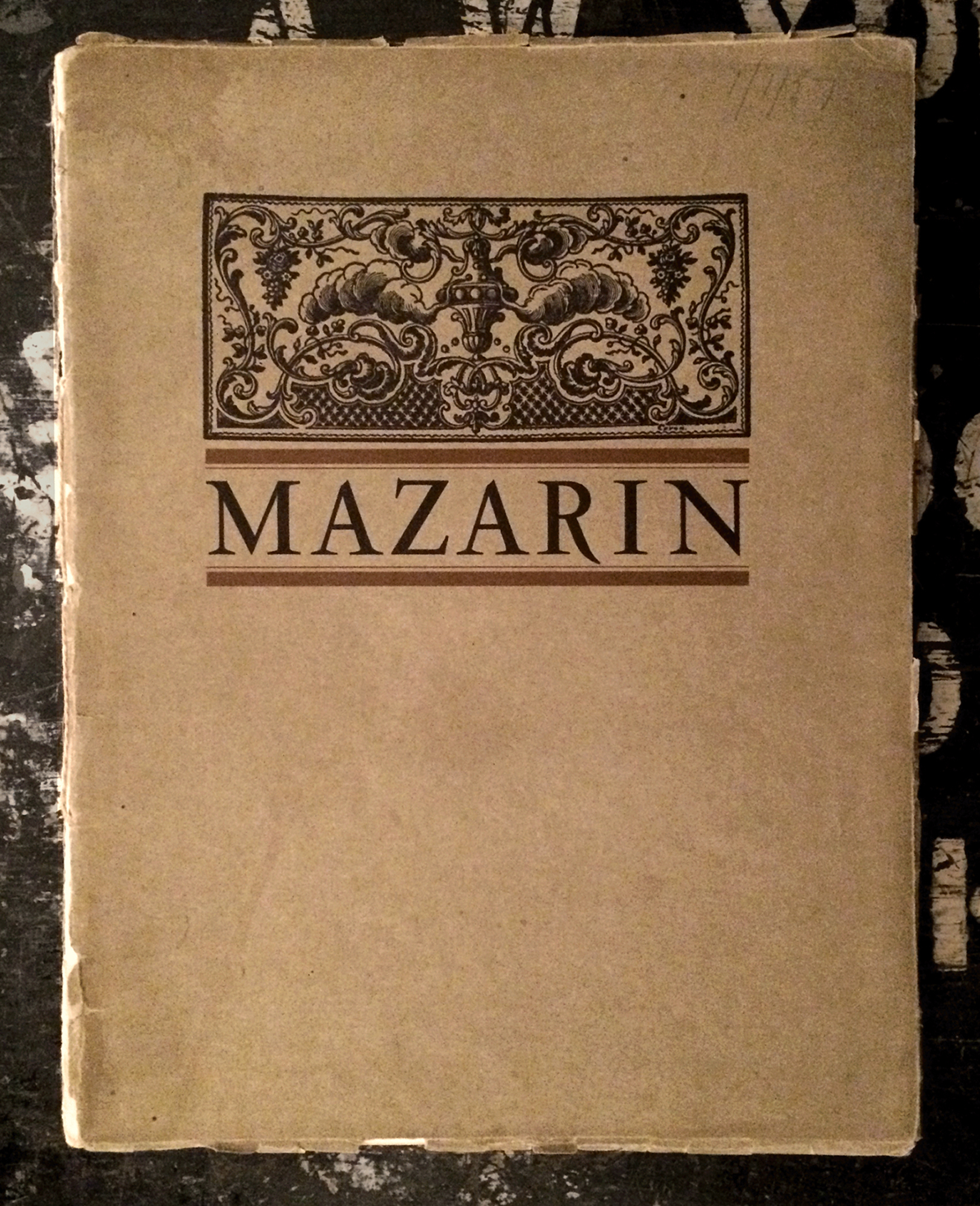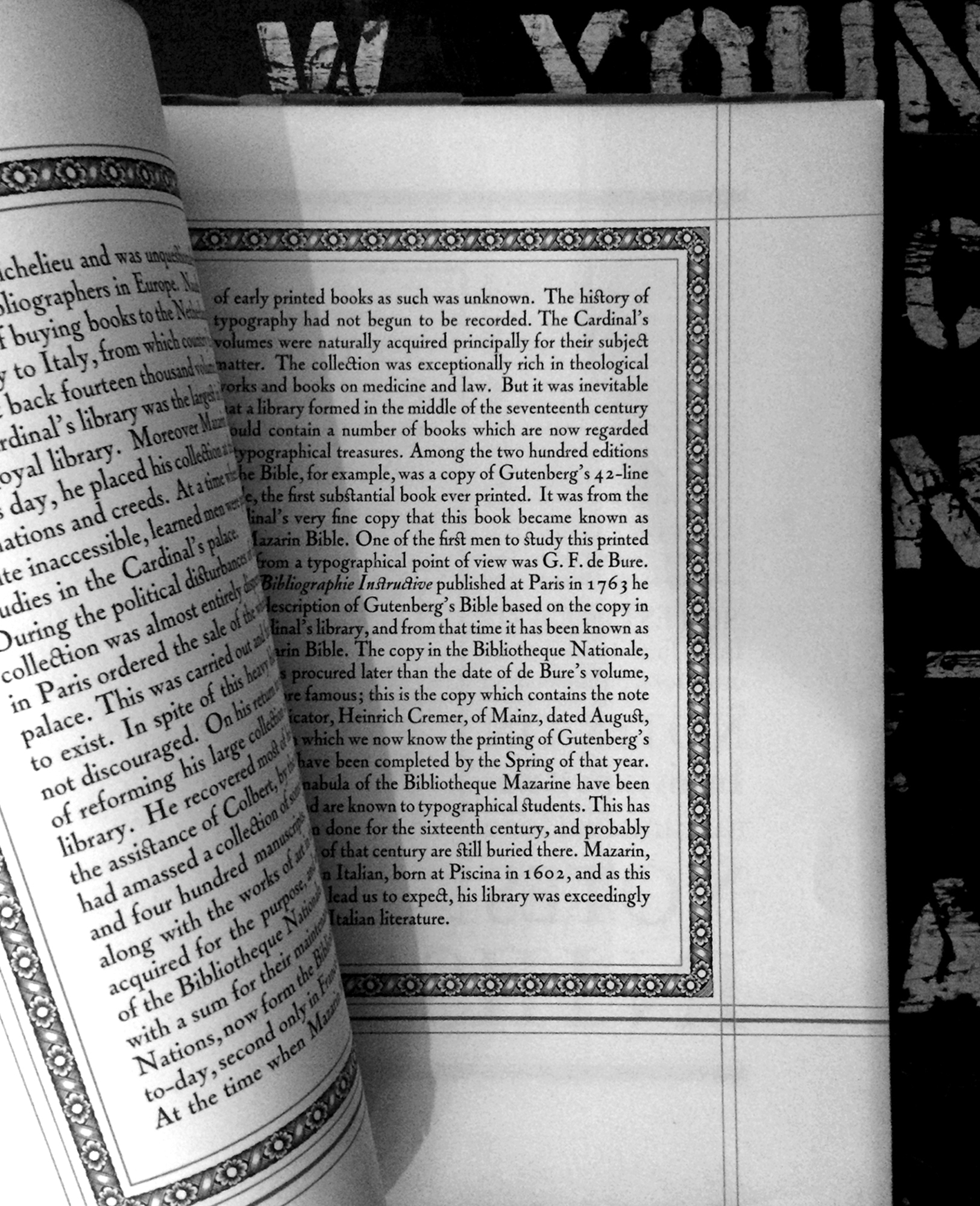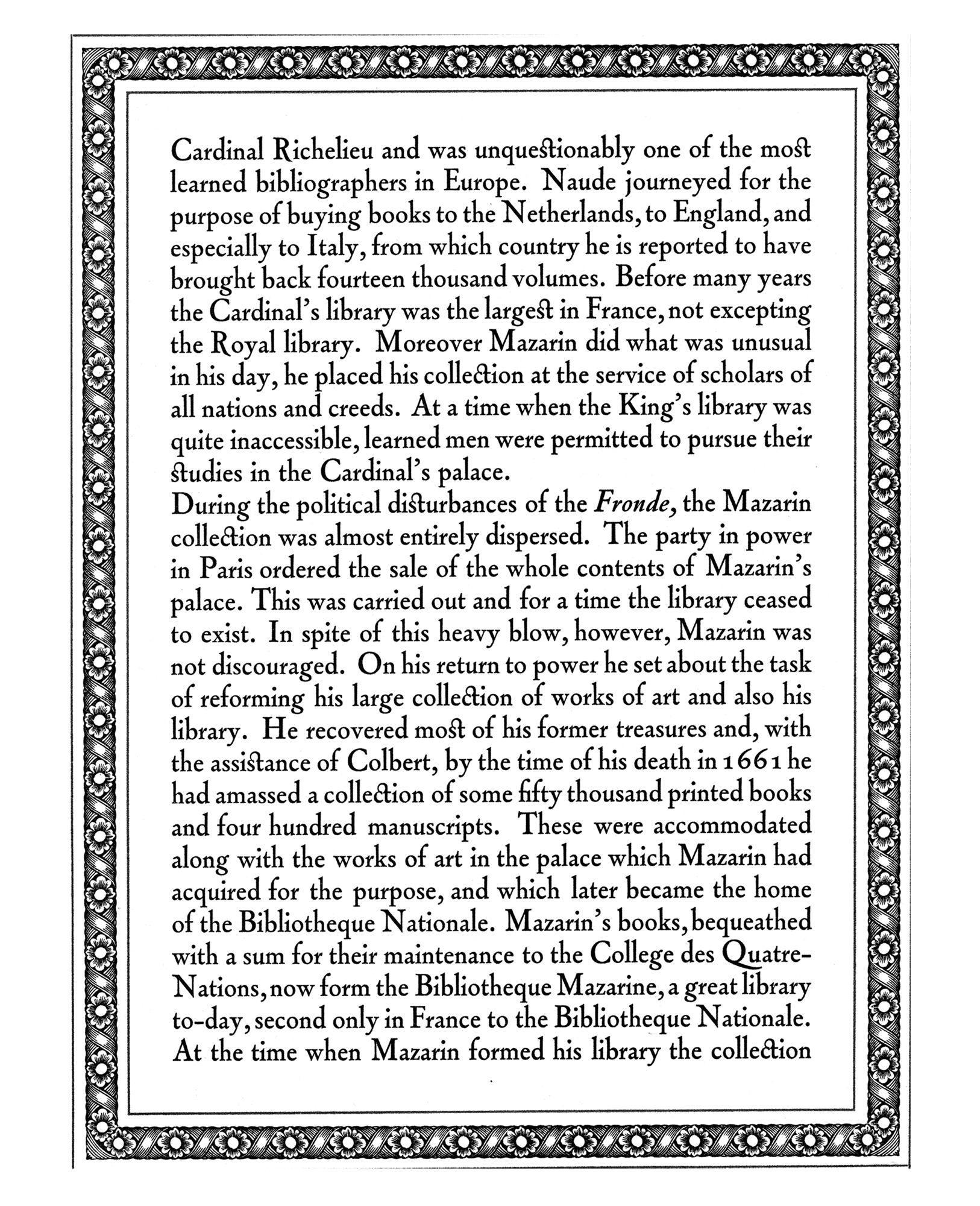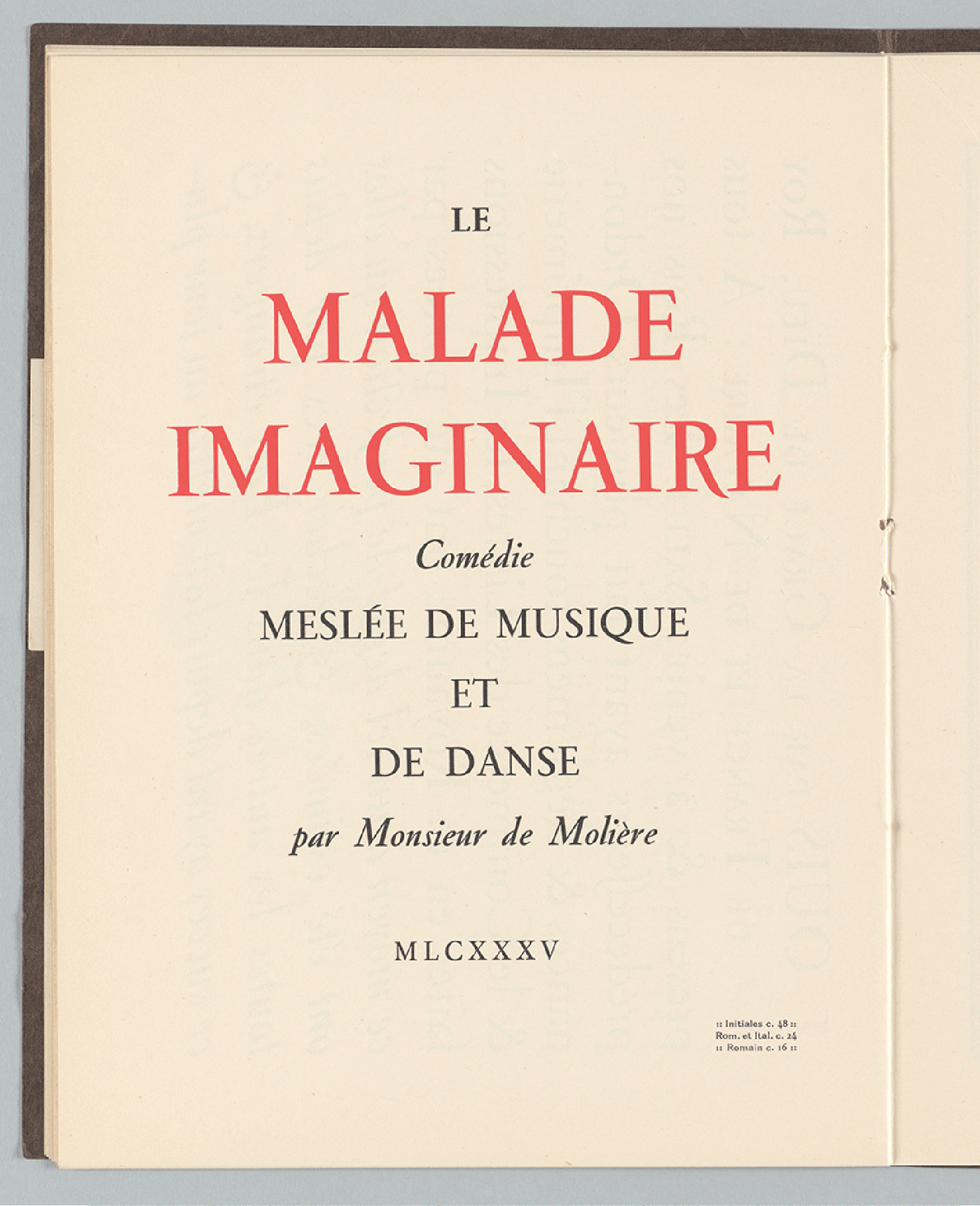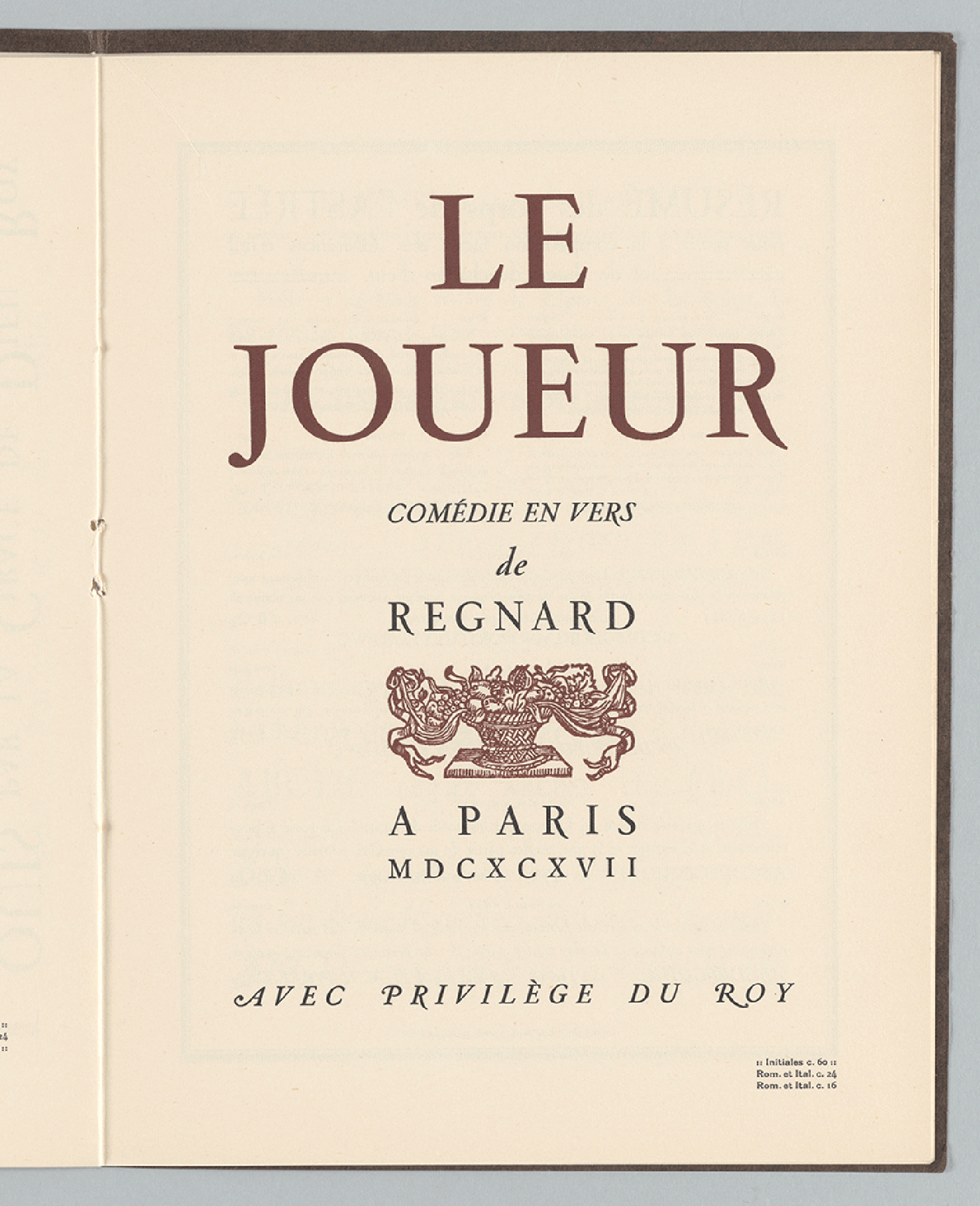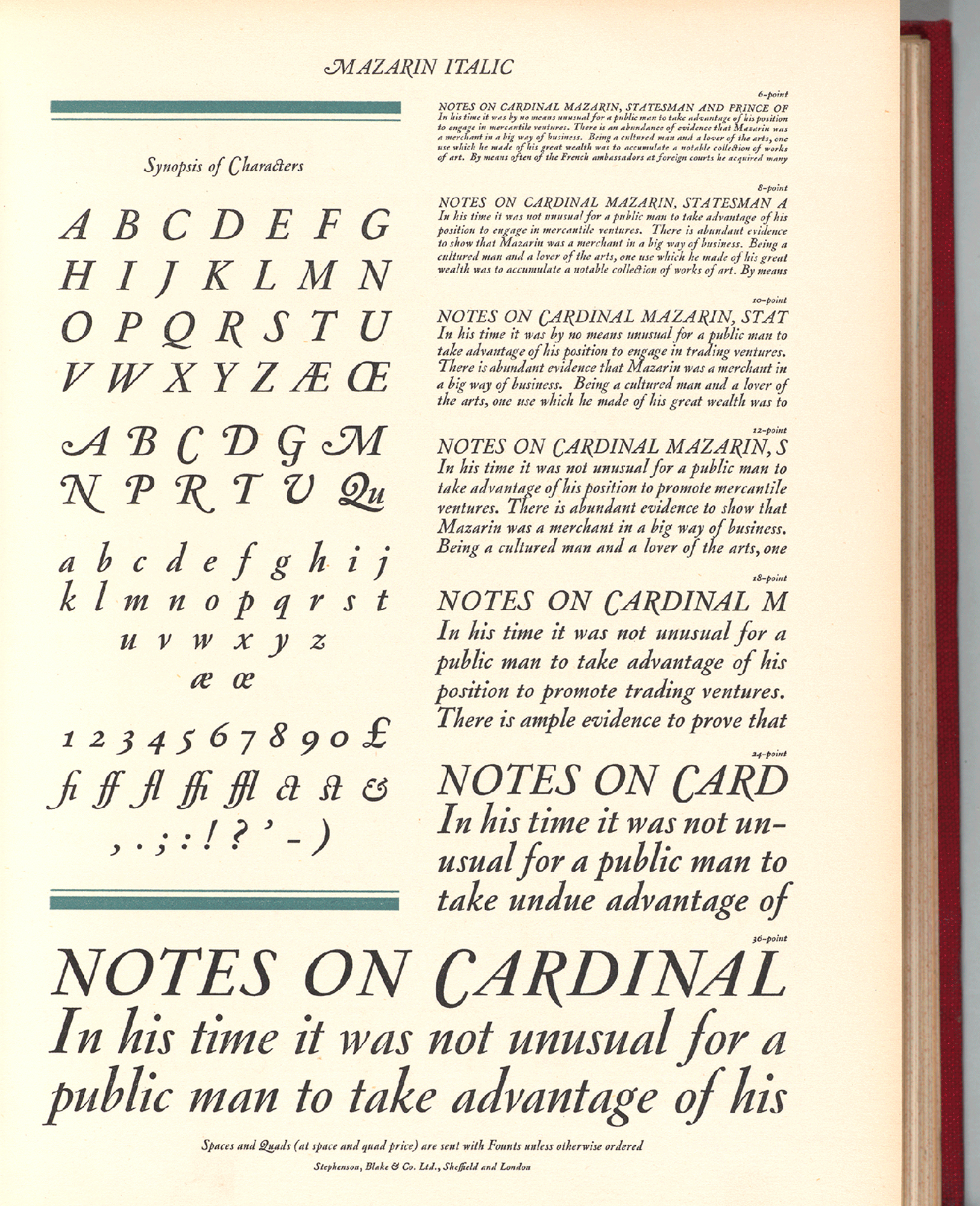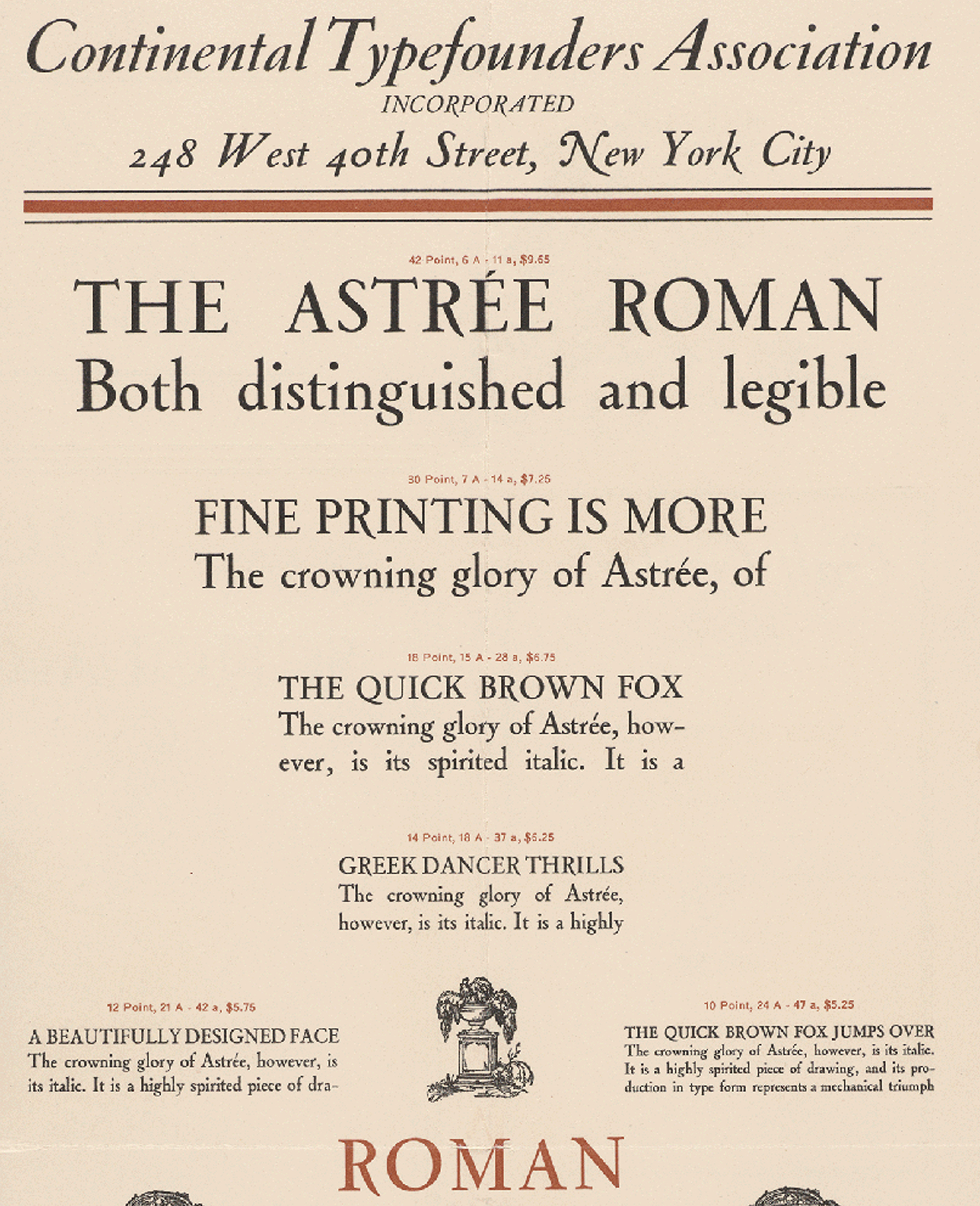
Astrée / Mazarin by Paul Shaw, June 2019
In the years that immediately preceded the Great War, the French typefoundry G. Peignot et Fils issued a trio of typefaces collectively referred to as “Les Cochins”: Le Cochin (1912), Le Moreau-le-Jeune (1912), Le Nicholas-Cochin (1912–1914). Designed by Georges Peignot, these typefaces were modelled after lettering and type of the 18th century ancien regime, especially that of engraver Charles Nicholas Cochin (1715–1790). [1] Les Cochins (along with Naudin and Bellery-Desfontaines, two other types from the Peignot foundry issued in 1911) were viewed as a welcome break in French typography from the influence of Art Nouveau. [2] They were followed in 1914 by a Garamond from Peignot, inadvertently modelled like other “Garamonds” of the time on the types of Jean Jannon. This trend toward a return to the era of French typographic glory was not limited to the Peignot foundry. Around 1913 work had begun at Deberny & Cie on a typeface in the French Renaissance style, but the outbreak of World War I in 1914 delayed its release. That typeface was L’Astrée. [3]
Astrée was designed by Robert Girard (1883–1955), an engineer by training and the nephew of Charles Tuleu. Tuleu had overseen Deberny & Cie from 1877, the year that Alexandre Deberny died, until 1914 when he took Girard on as a partner and renamed the firm Tuleu & Girard. In 1921 Girard took over the foundry which became Girard & Cie and work on Astrée was resumed. That same year a merger with G. Peignot et Fils, now under the direction of Charles Peignot, was negotiated but not completed. [4]
By the time the merger of the two foundries was finalized on July 1, 1923, L’Astrée had been completed and released by Girard & Cie. An advance showing was provided to Pierre Gusman in the fall of 1922. Writing in Byblis, he described L’Astrée as inspired by the types of Guillaume Le Bé, though there is no documentary evidence to support his assertion. [5] The first specimen book of L’Astrée, titled L’Astrée Caractère Comportant le Romain et Son Italique Gravé et Fondu par Girard & Cie, is precisely dated May 7, 1923, less than two months before the merger. Its colophon indicates that the type was engraved—probably pantographically—by Paul Bourreau and cast by Pochet (no first name provided). [6] Astrée (called L’Astrée by the French) was named after the 17th century pastoral novel L’ Astrée (1607-1627) by Honoré d’ Urfé.
L’Astrée initially consisted of a roman and an italic design, each available from 6 pt to 36 pt Didot. Initials (titling capitals) were available in 48 pt and 60 pt Didot. L’Astrée roman included small capitals, several ligatures (Qu along with quaint ct and st), and a swash e; and the italic had the same plus a broader range of swash letters (A, D, M, N, P, R, T, and V). Contemporary French commentators wee particularly excited about the Qu ligature which allowed the Q to have a luxuriant tail. The most notable features of L’Astrée were the open-loop of g and the high arm of r, reminiscent of Cheltenham. [7] The latter feature is the one aspect of the typeface that Gusman criticized.
Soon after the merger of G. Peignot & Fils and Girard & Cie, the newly named Deberny & Peignot exported the “Le Cochin collection” of types and Naudin to England and the United States with immediate success. This must have caught the attention of type executives in both countries because plans were soon made to make L’Astrée available as well. By sometime in 1924 Stephenson, Blake & Co., Ltd. had begun work on a licensed copy. [8] Their version, renamed Mazarin after Cardinal Mazarin (1602–1661), the chief minister to Louis XIII and Louis XIV, was ready by March 1926, though the first specimen was not published until two months later. [9]
The editor of The British Printer, upon seeing an advance showing of Mazarin, declared, “It is obviously difficult in the year 1926 to produce a type which strikes a fresh note, but this has undoubtedly been achieved. It would of course be easy to make a new type which is a freak, but as will be seen from the lines shown on this page, Mazarin is particularly pure in its form, with the additional advantage of possessing the necessary weight and strength required in modern printing of almost every kind. The roman has great beauty and distinction, and probably the italic is even better—the design possessing beauty as well as originality.” [10] The four-page printed specimen that he saw was included in the May issue of the journal as a special insert alongside one from H.W. Caslon for Le Cochin. [11]
Stephenson, Blake followed the Mazarin insert in The British Printer with a more elaborate 24-page specimen booklet later that year. Its size range went up to 72 pt. [12] Apparently they planned to export the type to the United States as several American trade journals commented favorably upon both Mazarin and the booklet in the spring of 1927. The editor of Printed Salesmanship, commented, “This is a very graceful face, forceful but not clumsy, with distinct characteristics, but not undue eccentricities.” [13]
At the same time that Stephenson, Blake was licensing L’Astrée as foundry type for the Anglo-American market, Mergenthaler Linotype was planning to adapt it for machine composition. Although a 1924 issue of The Linotype Bulletin announced that L’Astrée would be ready next year, the linotype version of the face was not issued until the second half of 1926. [14] The delay was probably due to licensing negotiations with Deberny & Peignot combined with the need to work on other new types first.
This was because E.E. Bartlett, Director of Linotype Typography at Mergenthaler, had spent 1925 organizing an International Typographic Council. The Council—consisting of Bartlett and Harry L. Gage from Mergenthaler Linotype; George W. Jones of Linotype & Machinery, Ltd. in England; David Stempel of D. Stempel AG and Mergenthaler Setzmaschinen-Fabrik in Germany; Raffaello Bertieri, editor of Il Risorgimento Grafico in Italy; and Charles Draeger of Draeger Frères, a leading French printer—was officially announced in January 1926. At that time, Mergenthaler also announced that as a result of this internatinal cooperation they would be making a group of new types: Cloister Old Style [sic], Baskerville, Narciss, Garamond (from Stempel), Moreau-le-Jeune, and L’Astrée. [15] In response to this announcement The American Printer remarked that L’Astrée “has obtained a wide use in Europe and will doubtless find great popularity in this country.” [16] Mergenthaler touted the type’s French heritage, even as it anglicized the name: “Astrée is the final and happy result of a great modern revaluation of its [France’s] own typographical history which has taught its designers what was sound and therefore to be kept alive, and what was unsound and therefore to be eliminated….The French genius for elegance has in this type achieved the feat of producing an elegance that is the same in every and any national environment….” [17]
In 1925 Melbert B. Cary, Jr. established the Continental Typefounders Association with the goal of importing European types that had been specially cast on American body and American height to paper. The company became famous for making Koch Antiqua (Eve Antiqua), Neuland, and Kabel—among other types—available to American printers. [18] Beginning in the spring of 1927, it also imported L’Astrée. The specimen book that it published was printed in France with design, typography and colors closely mimicking those of the one that Girard & Cie had issued in 1923. [19] Its comments on L’Astrée also repeated the prevailing views of the trade journals. “The roman has undeniable individuality without being in the least freakish,” it asserted. [20] Cary was much more enthusiastic about the italic, noting its technical as well as aesthetic merits: “The crowning glory of Astrée, however, is its italic. It is a highly spirited piece of drawing, and its production in type represents a mechanical triumph as well. To provide for the kerns of unusual length, he italic has been cut extremely deep, so as to give strength to the overhanging portions of the face.” [21] Continental’s decision to import L’Astrée may have preempted any plans that Stephenson, Blake may have had to make Mazarin available in the United States as there is no evidence of the latter being used by American advertisers or printers.
According to the 4th edition of the Continental Typefounders specimen catalogue (1930), L’Astrée was first used in the United States to set a Grolier Club book titled Gazette Française in 1926 and that, “Since then it has been used extensively for both book and commercial printing.” In the previous edition the company had boasted that “Advertisers, agencies and composition houses have enthusiastically welcomed ASTRÉE into the felllowship of leading type designs.” [22] Yet, despite these claims and the widespread praise the typeface received the typeface—whether called L’Astrée, or Mazarin—seems to have made little long-term impact in any of its three principal markets beyond. Mergenthaler never dedicated advertisements to Astrée as it did with Cloister Old Style, Narciss, and Garamond. [23] And by 1935 it had disappeared from the company’s Digest of Linotype Faces. [24] Similarly, L’Astrée and Mazarin were no longer included in the post-World War II catalogues from Continental Amsterdam (the successor to Continental Typefounders) and Stephenson, Blake catalogues, respectively. [25]
In 1984, Charles Peignot, recalling his early days as the head of Deberny & Peignot, said that L’Astrée had “une carrière modeste”. [26] But L’Astrée must have done well enough initially in France since Deberny & Peignot extended the modest family with a “noire” (bold) version in 1930. At the same time the initiales were also extended to include sizes from 8 pt to 36 pt Didot and two new sizes (24 and 30 pt Didot) were added to both the roman and italic. The new family was prominently displayed in 1935 in volume II of Spécimen Général des Fonderies Deberny et Peignot. But this was probably the last hurrah for L’Astrée. [27]
The failure of L’Astrée (and its American and British versions) to achieve sustained popularity can be attributed to two things. First, it was overshadowed by the various Garamonds that dominated interest in classical types in the 1920s.
This is evident in Mergentaler’s emphasis on the Garamond they licensed from Stempel over Astrée as well as the continued release of such faces throughout the decade. Second, the type was easily forgotten as modernistic or Art Deco types came to dominate the typographic conversation after 1927. [28] Ironically, this trend actually began two years earlier when Charles Peignot designed Sphinx as a deliberate response to the mania for typographic revivals. [29] In this environment L’Astrée was neither as “pure” as Stempel Garamond, nor as quirky as Le Cochin, let alone as “fresh” as types such as Broadway, Parisian, Boul Mich and the Nubian Series of type.
In the 1927 L’Astrée specimen, Cary declared the type, “is new, well-designed, and effective. There are not many more requirements that can be asked for in a typeface.” [30] The same can be said for the new A2-Mazarin designed by Henrik Kubel. Kubel has rescued Mazarin (née Astrée) from undeserved obscurity, offering it as a lively alternative to the plethora of Garamonds that still hold sway in the design world. Nearly a century after its initial release, Girard’s design has a new chance to make an indelible mark.
End.
Notes
1. “History of Deberny et Peignot II” (2001–2002) http://amgweb.rit.edu/dphist2…..; “Les Peignot: Georges, Charles” by Charles Peignot in Communication et Langages, vol. 59, no. 1 (1984), pp. 66–67 and 70–71.
2. Histoire de l’Imprimerie par l’Image: L’Histoire et la Technique, Tome II by Marius Audin (Paris: Henri Jonquières Editeur, 1929), p. 82.
3. The date “vers 1913” is cited in a quotation from Charles Peignot provided in an email from Jean Francois Porchez, 14 May 2013. Also see Spécimen Général des Fonderies Deberny et Peignot, Tome I (Paris: Deberny & Peignot, 1926): ”Dernier directeur de Deberny, Robert Girard avait dessiné l’Astrée, peu avant la guerre…”
4. “History of Deberny et Peignot I and II” (2001–2002) http://amgweb.rit.edu/dphist2…..
5. “Joseph Gillé, Fondeur du Roi et Joseph-Gaspard Gillé, membre de l’Athénée des Arts” by P. [Pierre] Gusman in Byblis vol.1 (1922), p. 187.
6. L’Astrée Caractère Comportant le Romain et Son Italique Gravé et Fondu par Girard & Cie (Paris: Girard & Cie, 1923), colophon.
7. L’Astrée Caractère Comportant le Romain et Son Italique Gravé et Fondu par Girard & Cie (Paris: Girard & Cie, 1923).
8. Mazarin was used on the spine of the 1924 Stephenson, Blake & Co., Ltd. catalogue, but did not appear inside. The catalogue was issued in May 1924.
9. “Trade News” in The British Printer vol. XXXVIII, no. 228 (March/April 1926), p. 308.
10. “Trade News” in The British Printer vol. XXXVIII, no. 228 (March/April 1926), p. 308.
11. “Mazarin: A Series of Old Face Types from six to seventy-two point with intermediate sizes in process of completion from the Letter Foundry of Stephenson, Blake & Co. Ltd.” insert in The British Printer vol. XXXVIII, no. 229 (May/June 1926).
12. Mazarin (Sheffield & London: Stephenson, Blake & Co., Ltd., 1926).
13. Printed Salesmanhip vol. 49, no. 2 (April 1927), p. 186.
14. The Linotype Bulletin vol. XVIII, no. 3 (1924), p. 36.
15. The Linotype Bulletin vol. XVIII, no. 7 (1926) and The American Printer vol. 82, no. 4 (February 20, 1926), pp. 52–54.
16. The American Printer vol. 82, no. 4 (February 20, 1926), p. 53.
17. The Linotype Bulletin vol. XVIII, no. 7 (1926), p. 108.
18. Melbert B. Cary, Jr. to P.J. Conkwright 19 April 1938 in Princeton University Special Collections C0665 P.J. Conkwright Correspondence, Box 2, Folder 3. The date of the founding of Continental Typefounders is often mistakenly given as 1926.
19. L’Astrée (New York: Continental Typefounders Association, 1927).
20. L’Astrée (New York: Continental Typefounders Association, 1927).
21. L’Astrée (New York: Continental Typefounders Association, 1927).
22. Specimen Book of Continental Types Imported Exclusively by the Continental Typefounders Association, Inc. 4th ed. (New York: Continental Typefounders Association, Inc., 1930).
23. This statement is based on a survey of volumes of The American Printer and Printed Salesmanship from 1926 to 1929.
24. A Digest of Linotype Faces (Brooklyn: Mergenthaler Linotype, 1935).
25. For example see the 1953 Stephenson, Blake & Co., Ltd. specimen book.
26. “Les Peignot: Georges, Charles” by Charles Peignot in Communication et Langages, vol. 59, no. 1 (1984), p. 74.
27. Spécimen Général des Fonderies Deberny et Peignot, Tome II (Paris: Deberny & Peignot, 1935), pp. 18–26.
28. This sudden shift in interest in“modernistic” types is evident in both the advertising and editorial pages of The American Printer, Direct Advertising, and Printed Salesmanship beginning in 1927 and continuing into the early 1930s.
29. “History of Deberny et Peignot IV: Deberny et Peignot, 1924-1938” (2001–2002) http://amgweb.rit.edu/dphist2…..
30. L’Astrée (New York: Continental Typefounders Association, 1927).